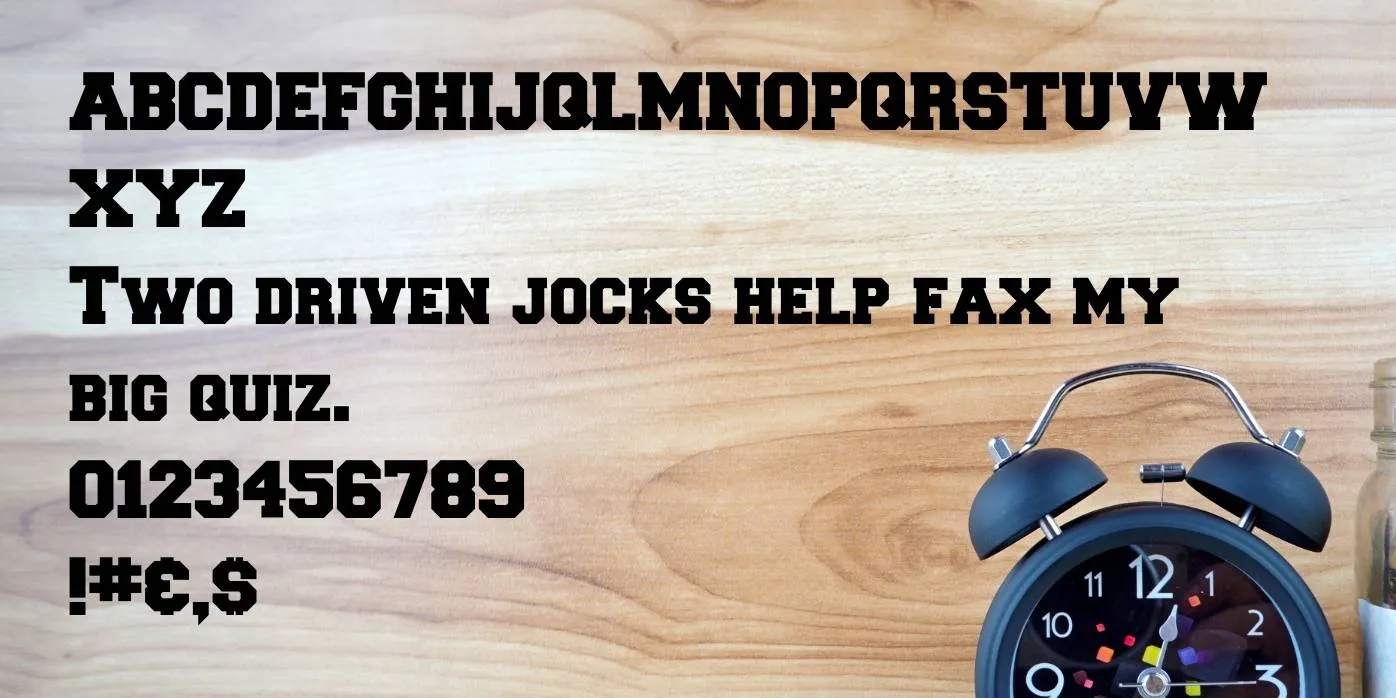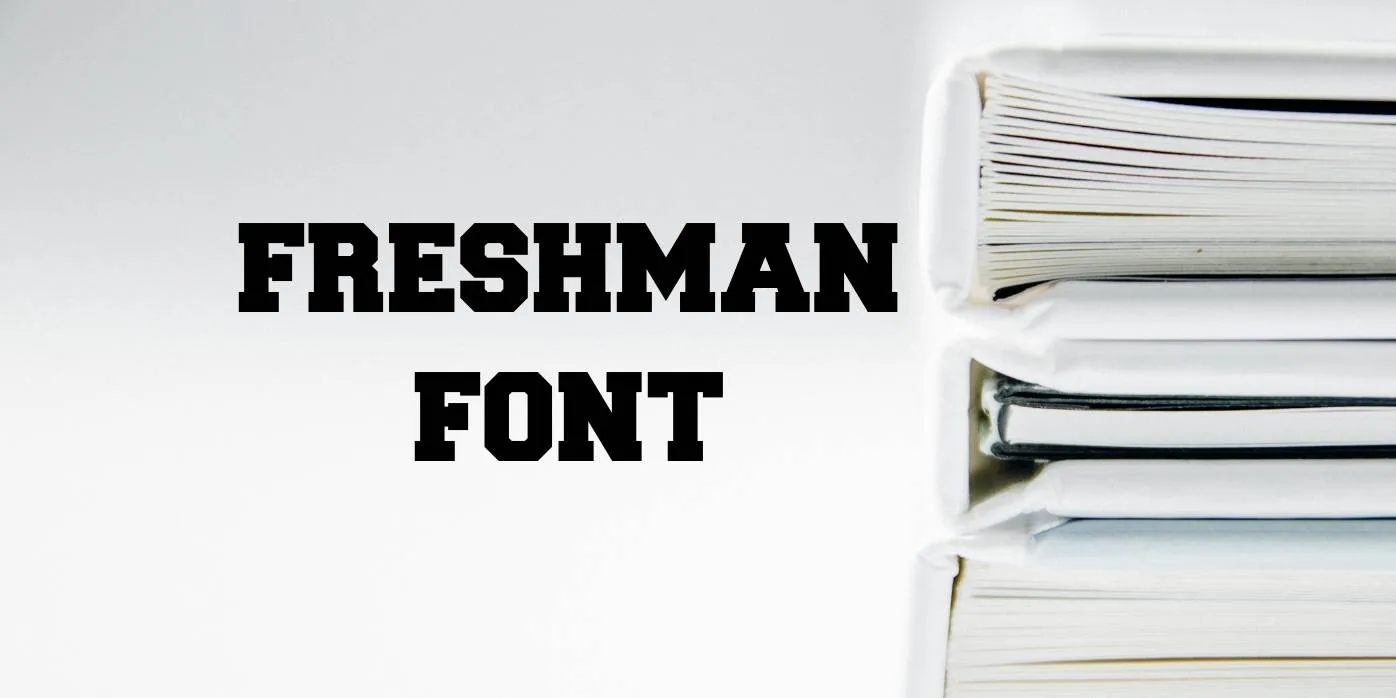
Freshman Font
Freshman Font is widely famous with the name of the athletic typeface. This typeface is sharing a lot of similarities with the varsity font and University font. It is the old style typeface that belongs to a Fancy font family and was designed by William Boyd. The Fancy typeface that seems like selfie font begins off evolved with a massive element set helping the peak of the communications, small caps, pictograms, and bolts.
The font family has Bold uppercase and lowercase letters, numbers, and Numerals and compulsory symbols, etc. The font supports many international languages and has the ability to manipulate any kind of difficult task. Its characters are bold shapes that can fulfill all the designer’s requirements and mandatory needs. You may generate this typeface by an online generating tool and can download its many similarities from our website as well.